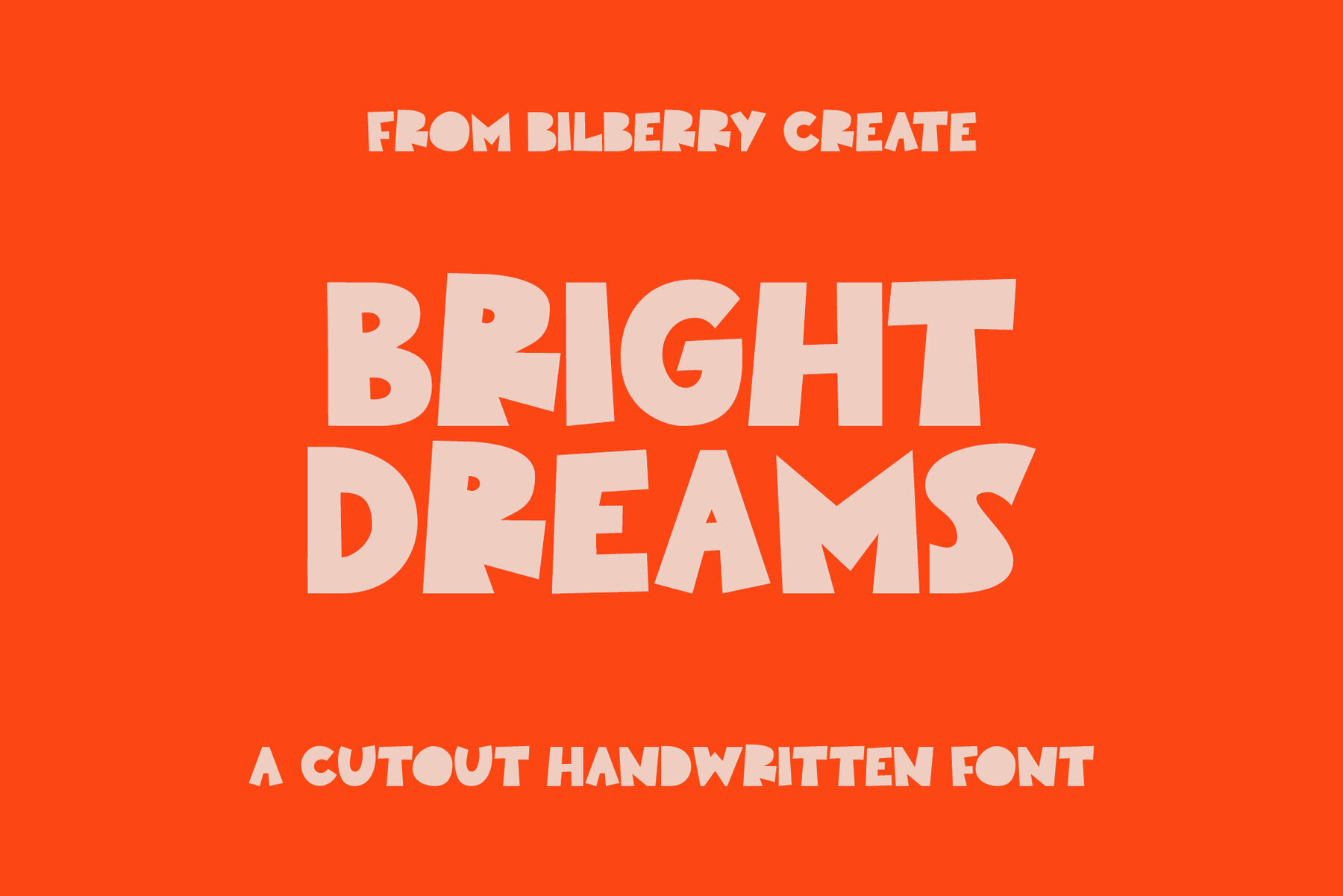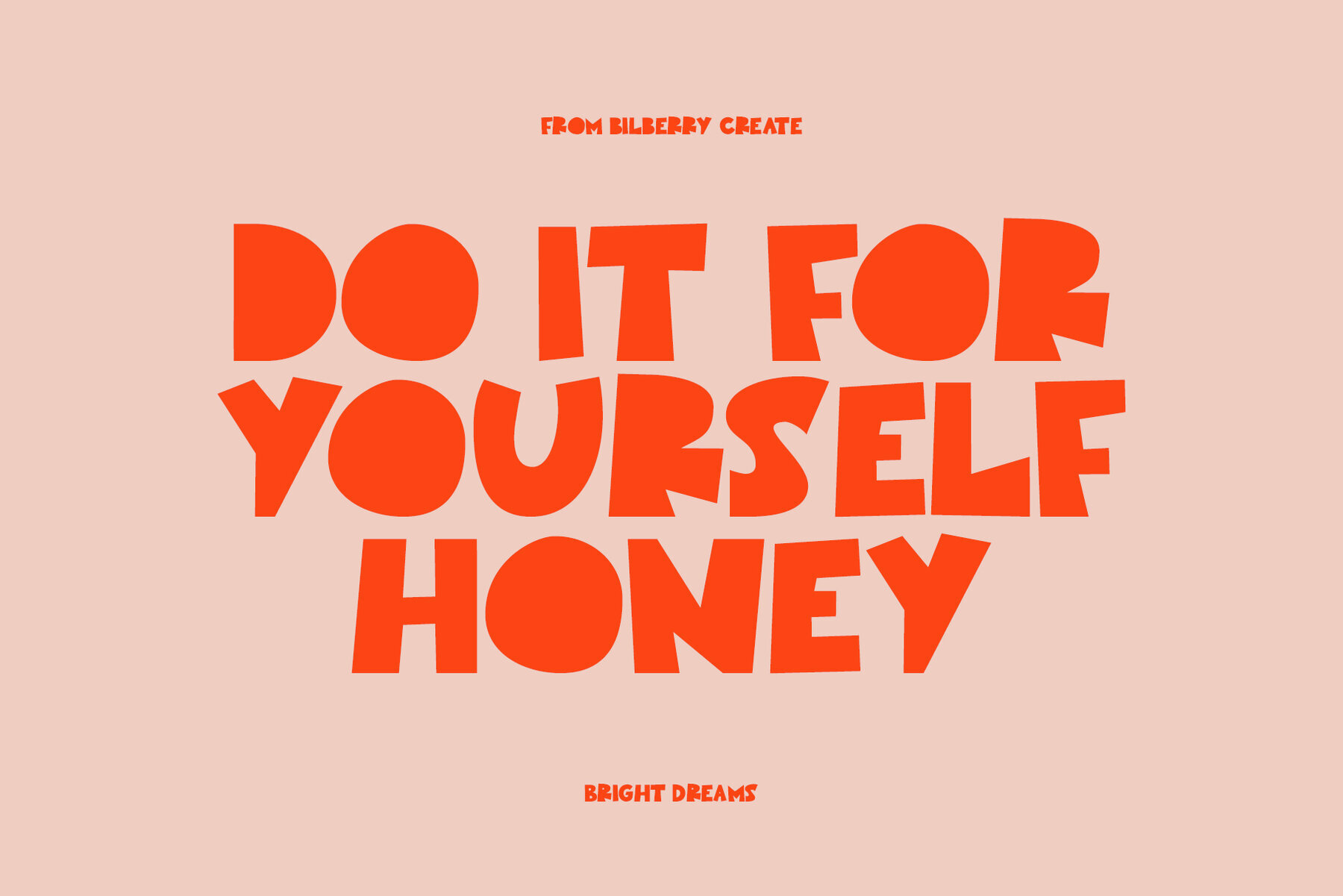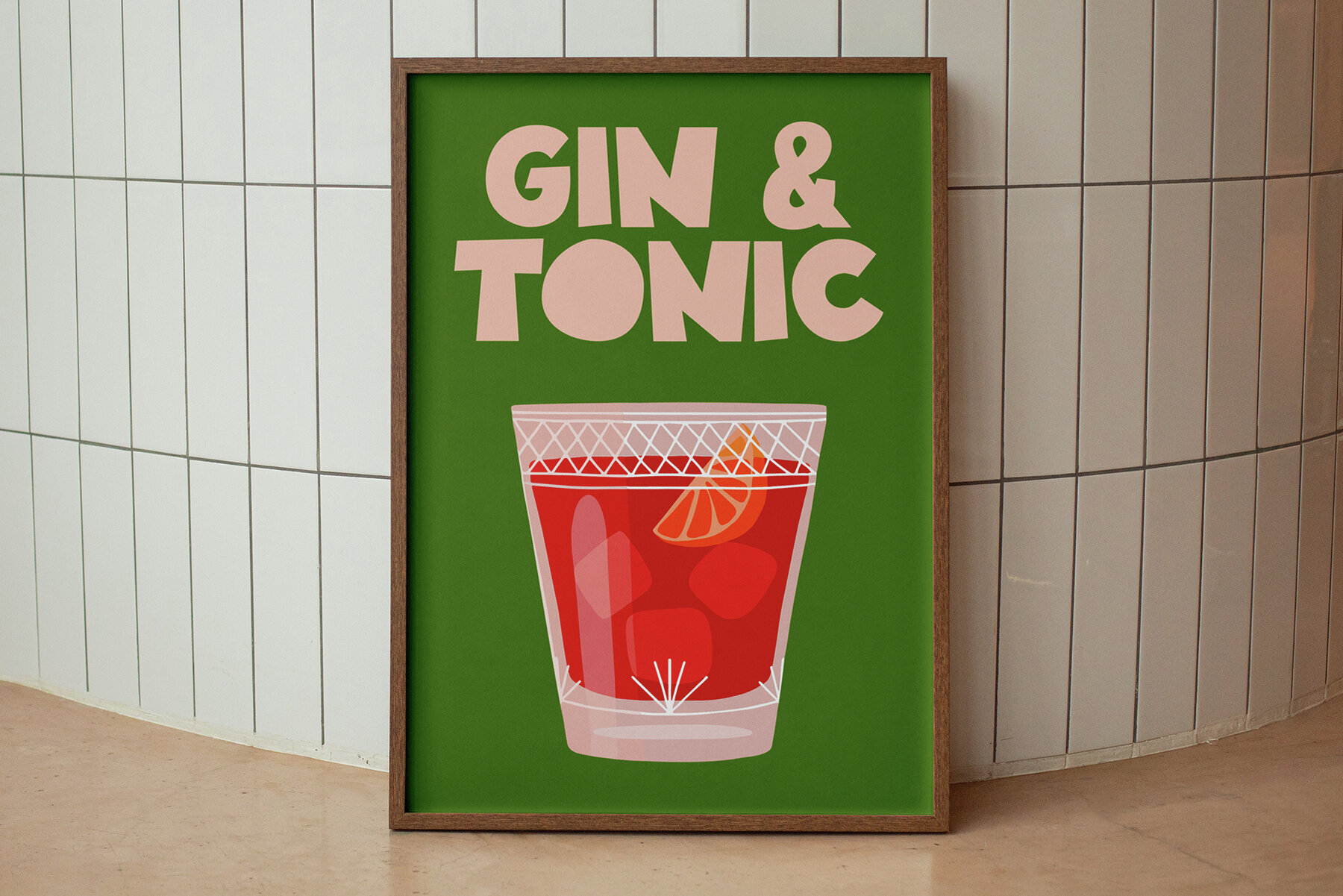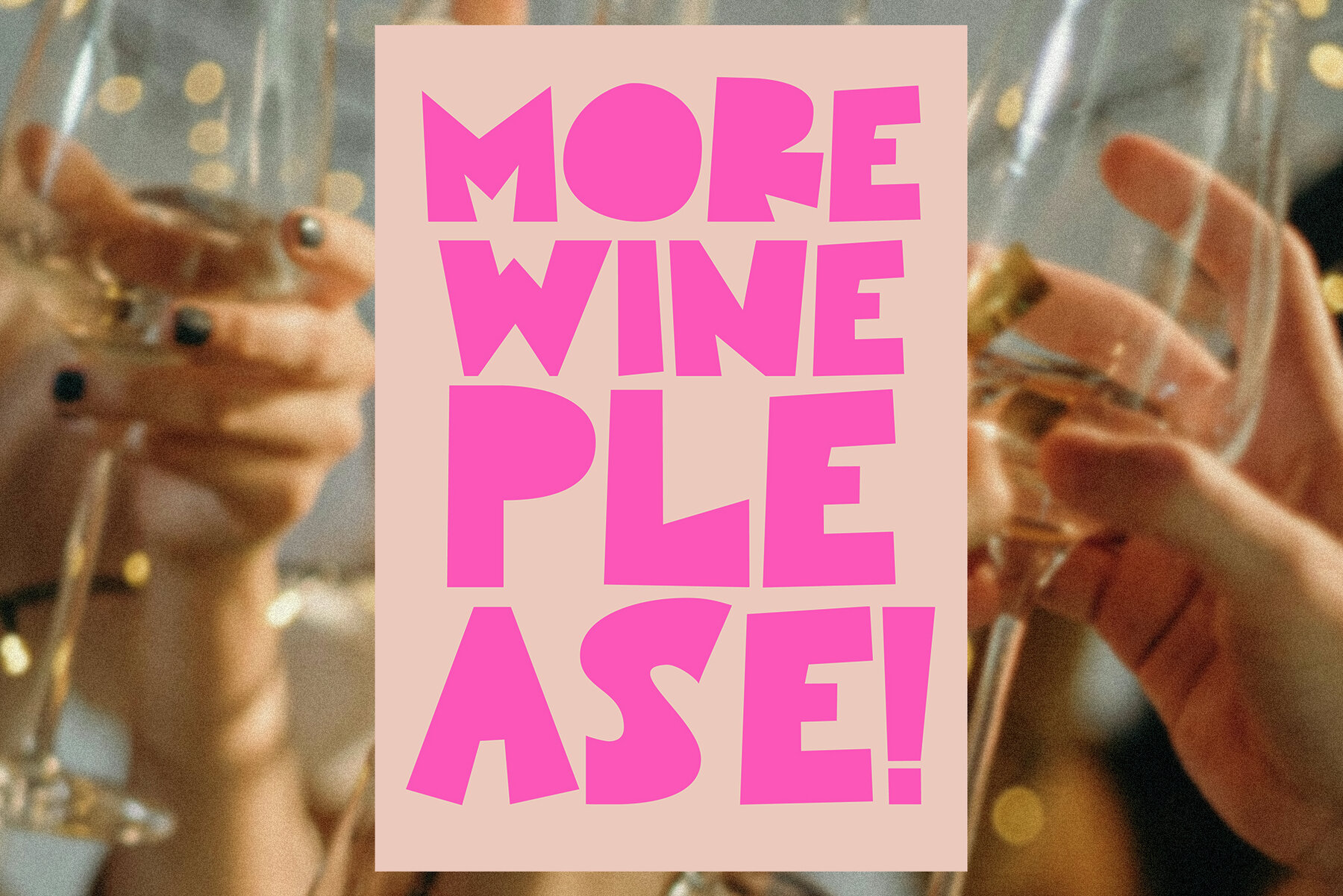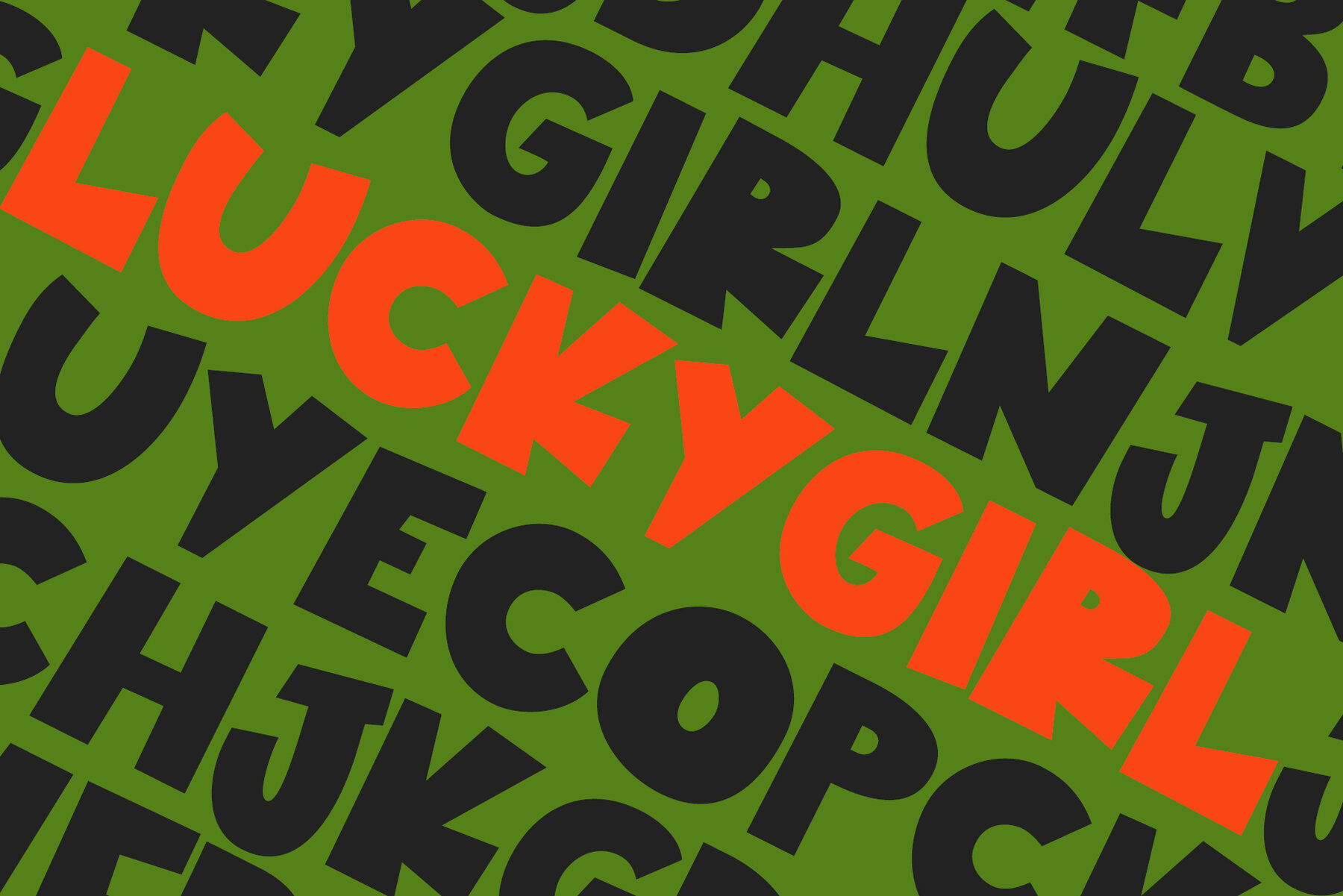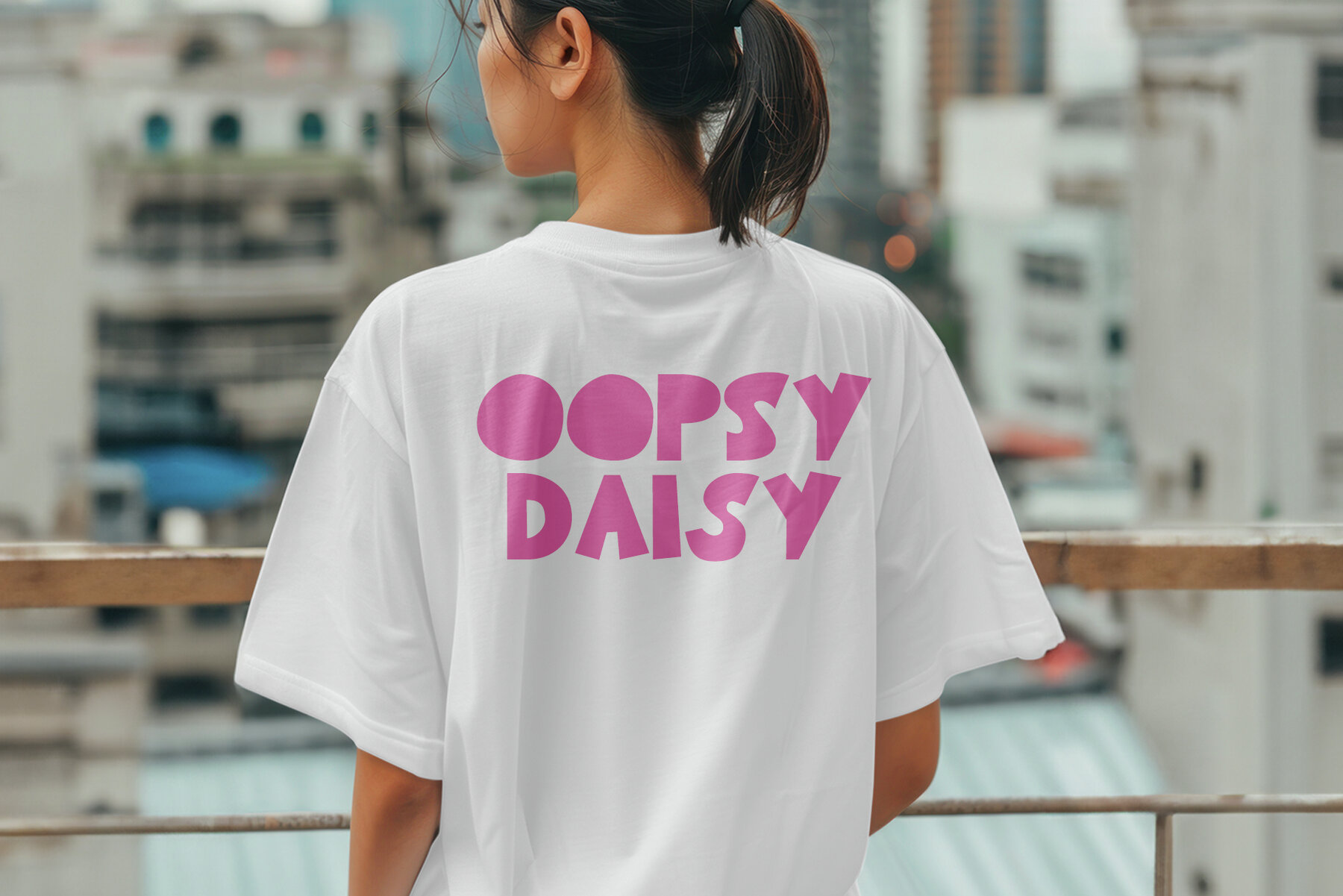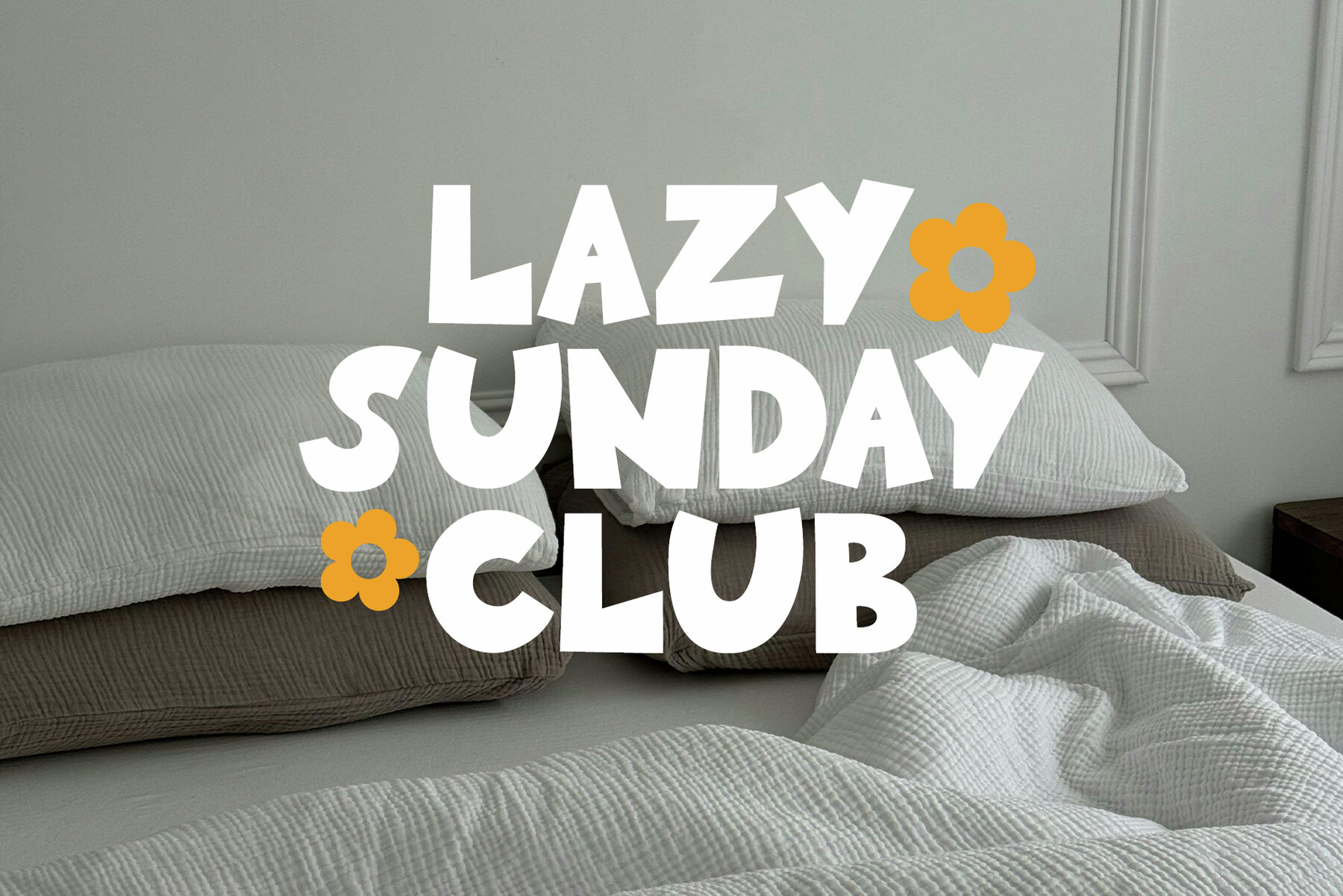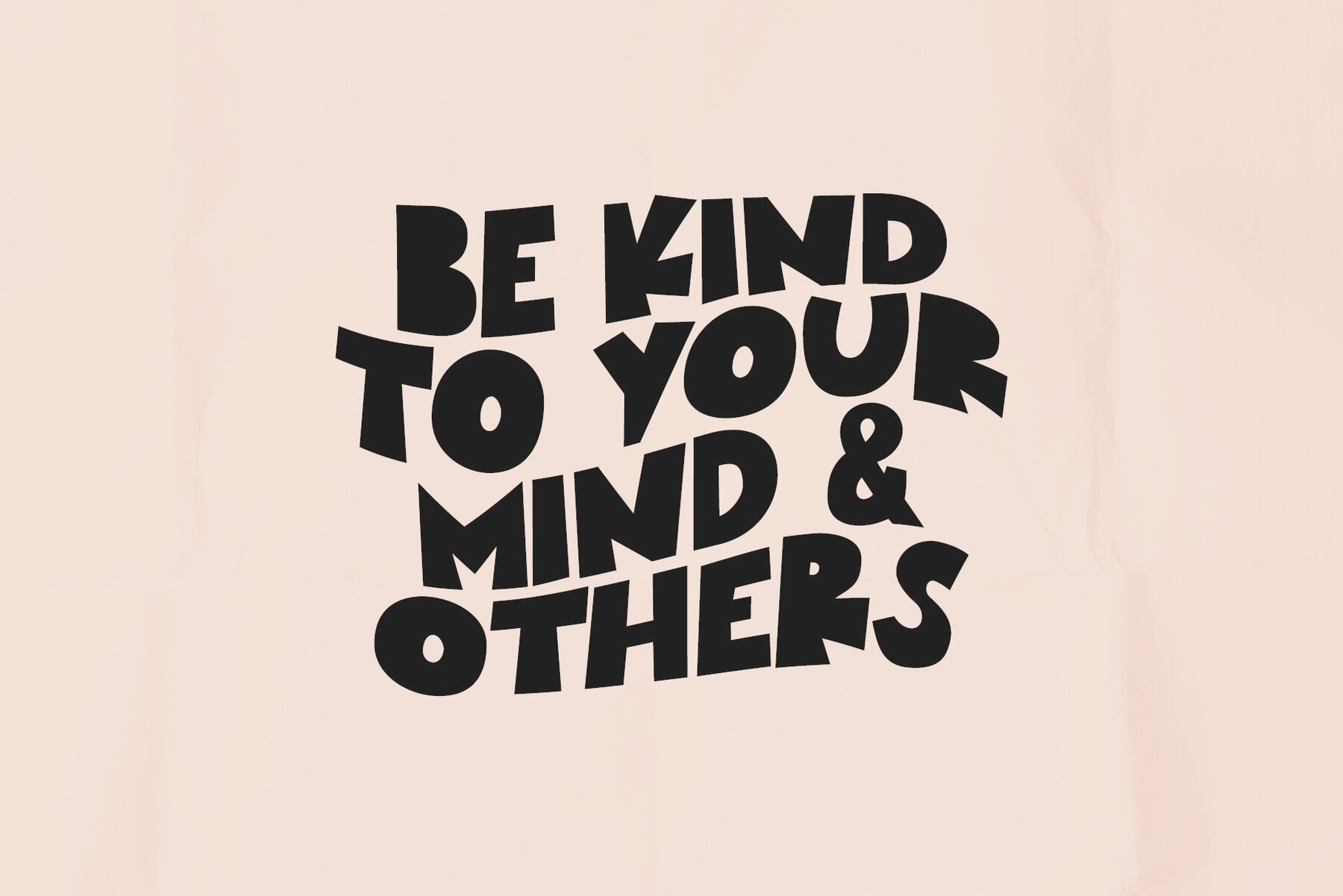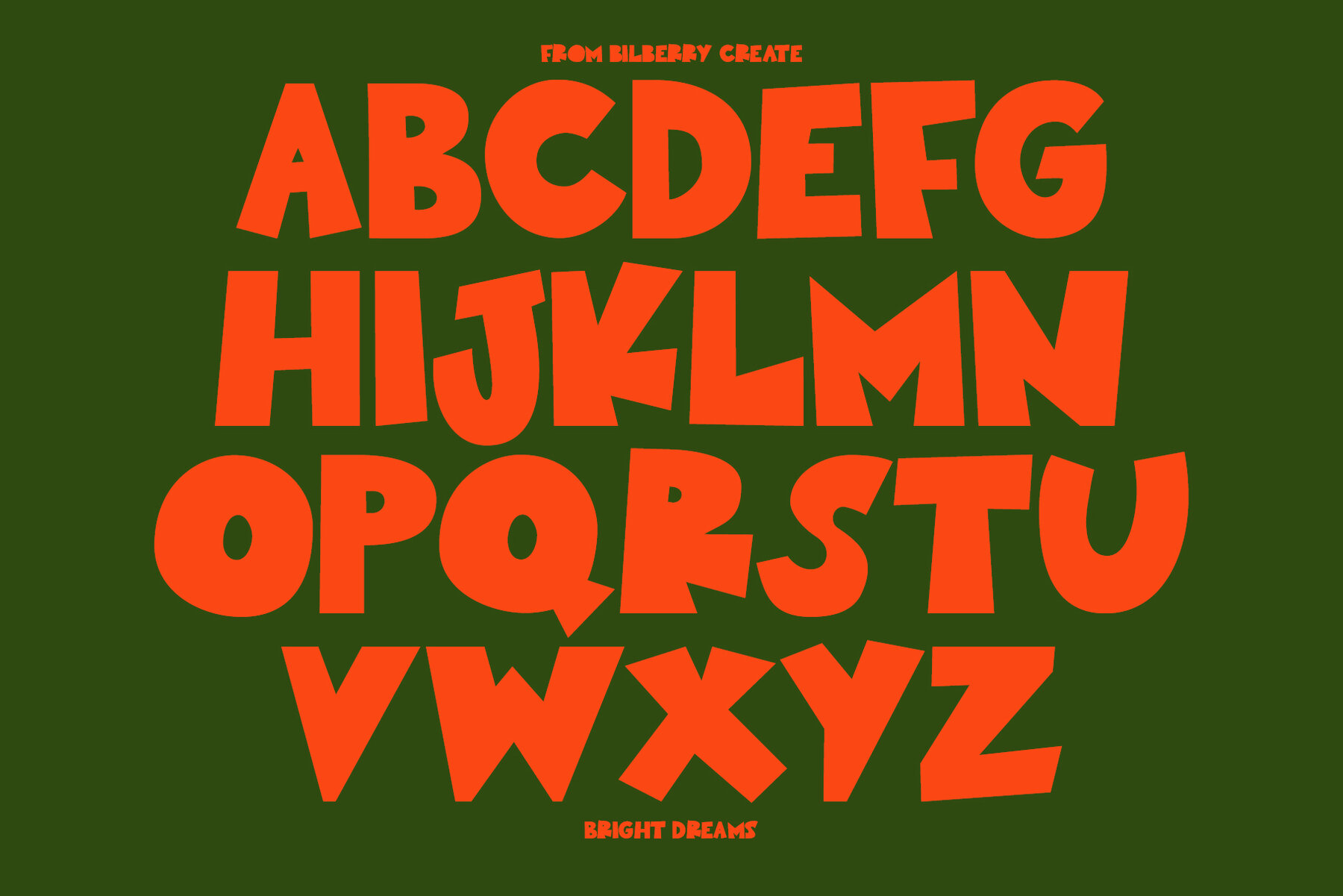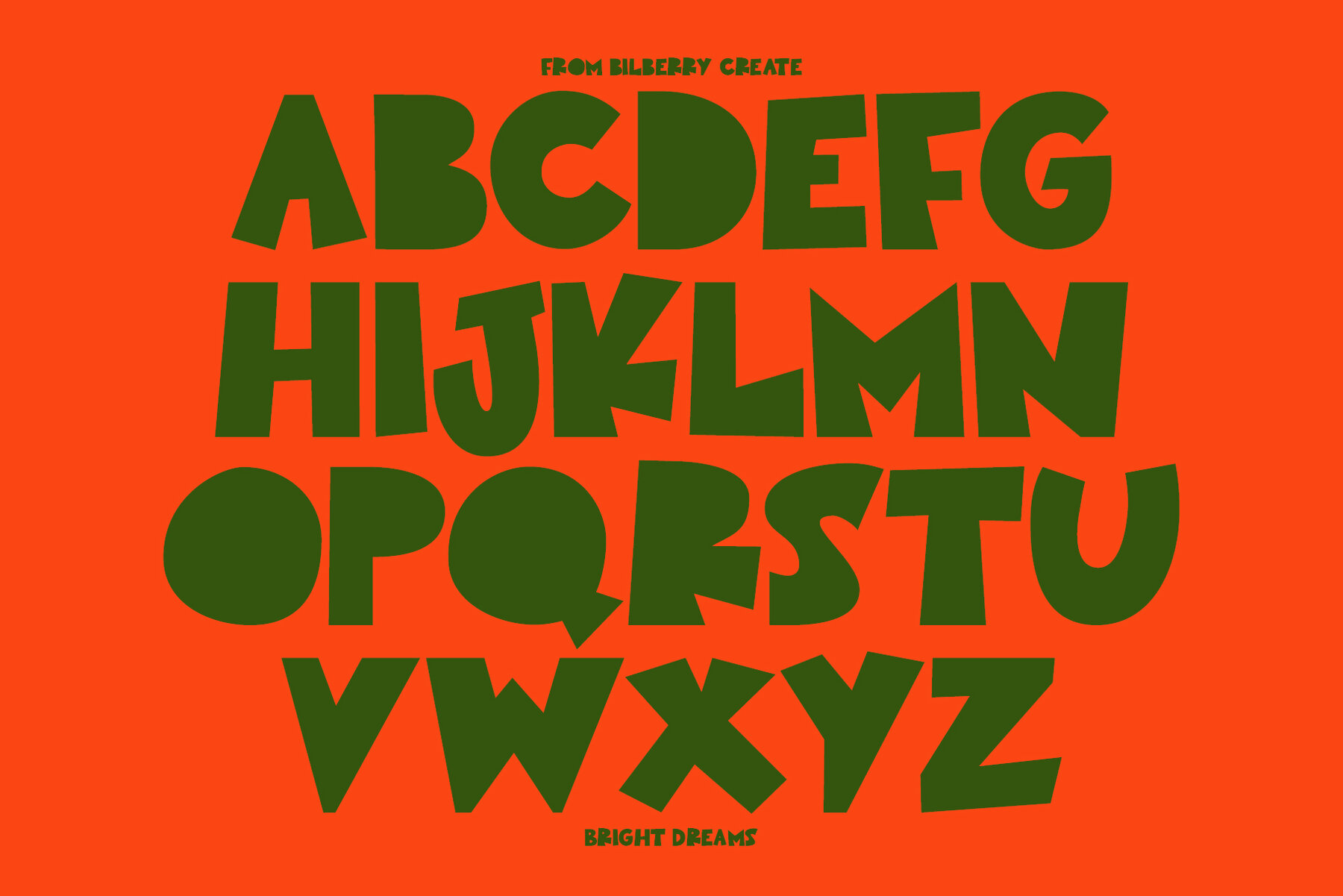
Bright Dreams Font
Bright Dreams Regular
Bright Dreams is an ideal choice for adding a playful touch to your creative projects. This unique and versatile font enhances the visual appeal of digital images, making them stand out with its whimsical charm. Suitable for a variety of applications, Bright Dreams is perfect for crafting logos, invitation cards, wedding and birthday cards, home decor items, and even packaging holiday gifts. Whether you're looking to design party decorations or create custom prints on fabrics, this font pack offers endless possibilities for your artistic endeavors.
Explore the wide range of elements included in the Bright Dreams, and add a distinctive flair to any project you're working on. Its playful aesthetic is both eye-catching and memorable, ensuring your designs leave a lasting impression. Perfect for designers who love to experiment with style, this font is more than just a typeface—it's an opportunity to bring your creations to life in a new and exciting way.